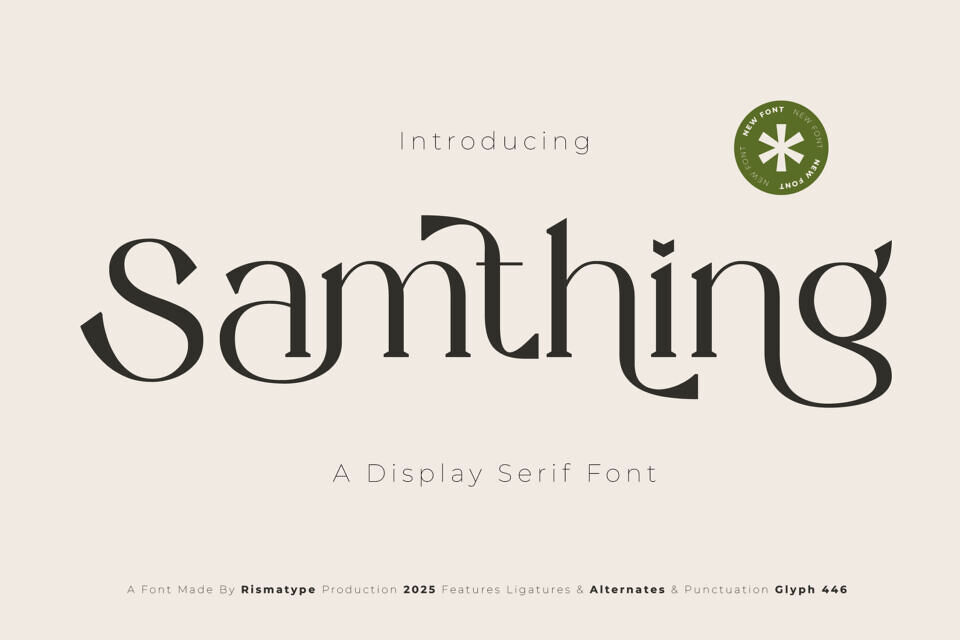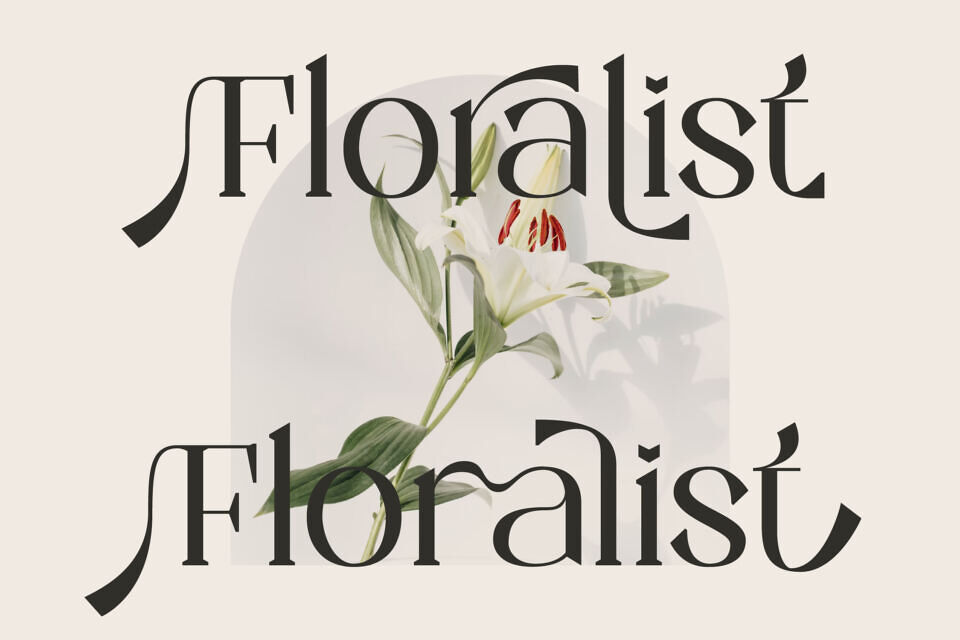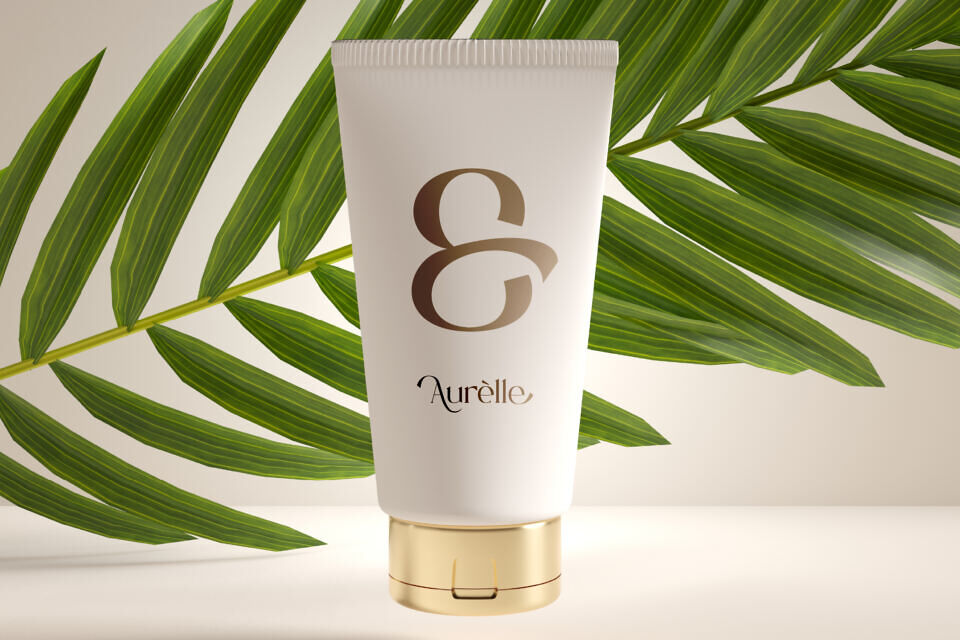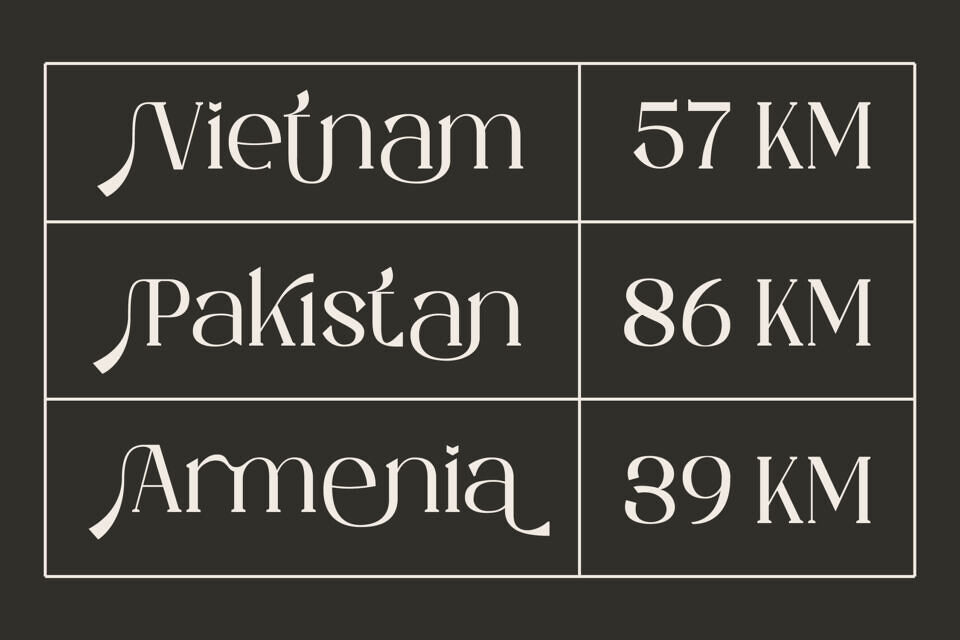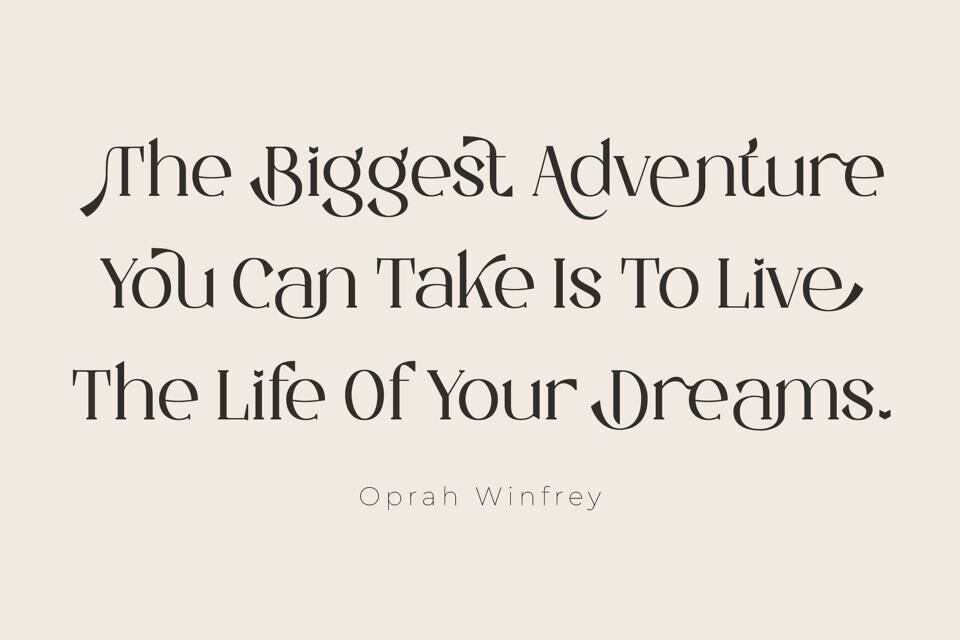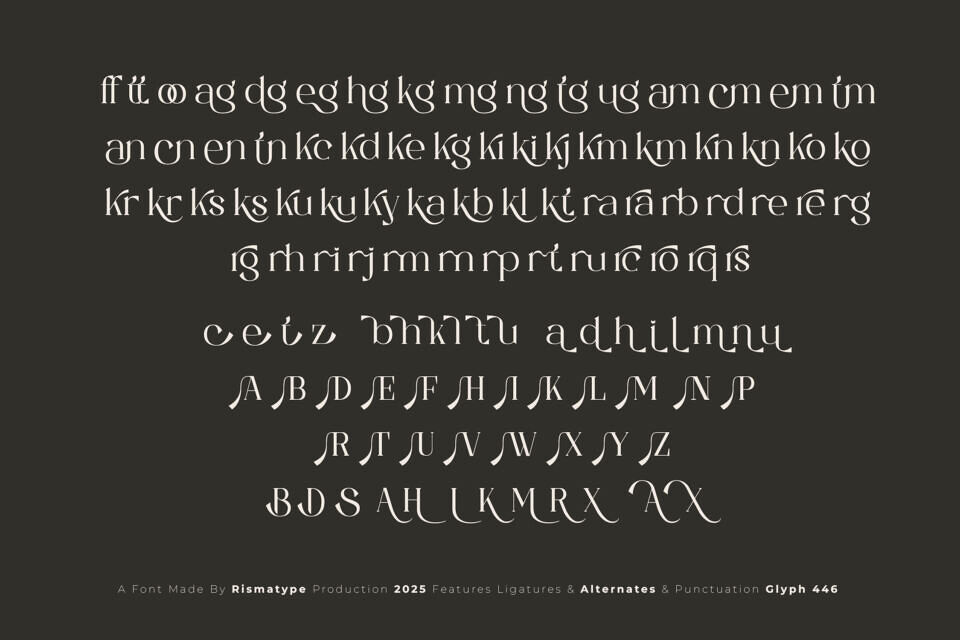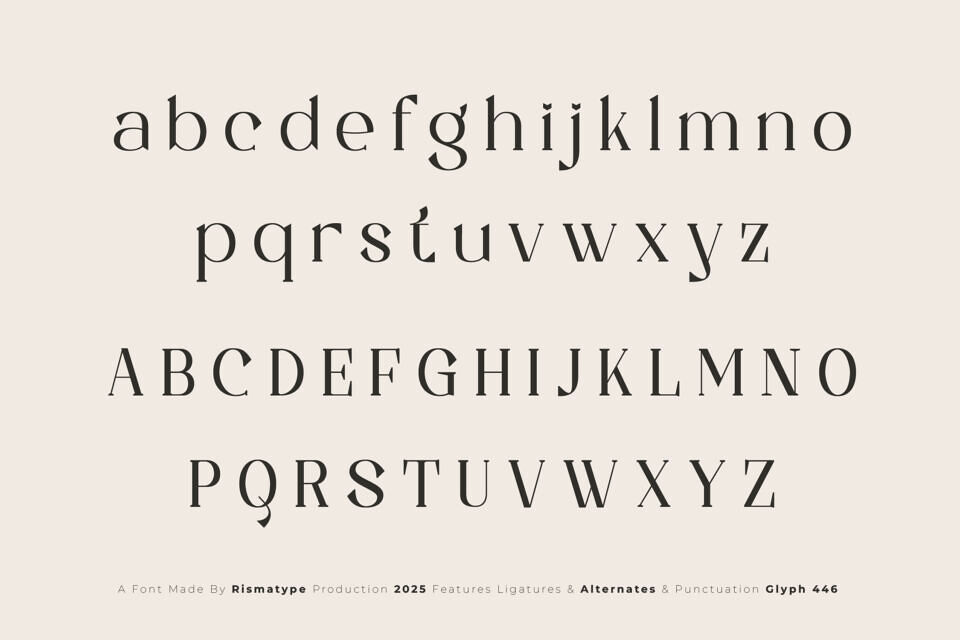
Samthing Font
Samthing by Risma Type is a refined serif display typeface that blends classic elegance with contemporary flair. With crisp bracketed serifs, generous contrast between thick and thin strokes, and tall uppercase letters paired with graceful lowercase forms, it creates an upscale yet approachable aesthetic. Ideal for headlines, branding, and editorial use, the font projects sophistication without sacrificing readability.